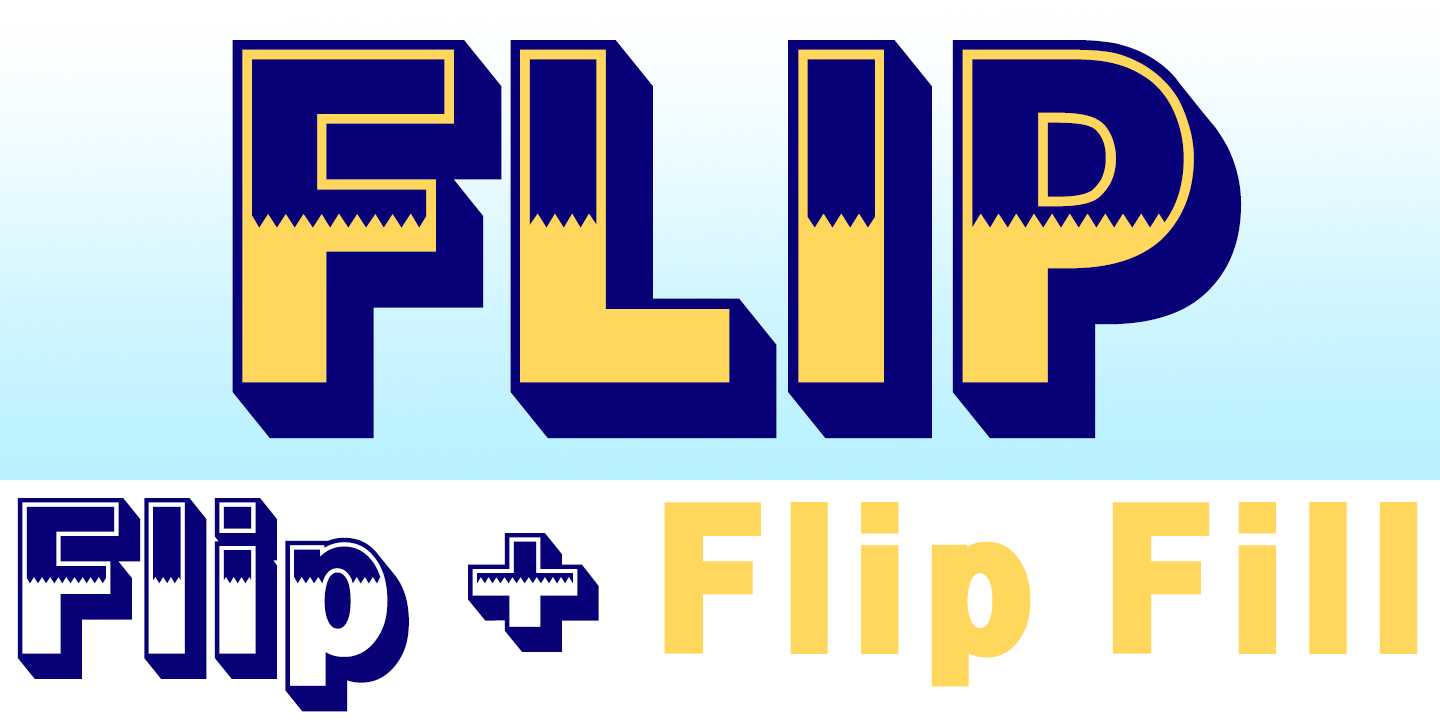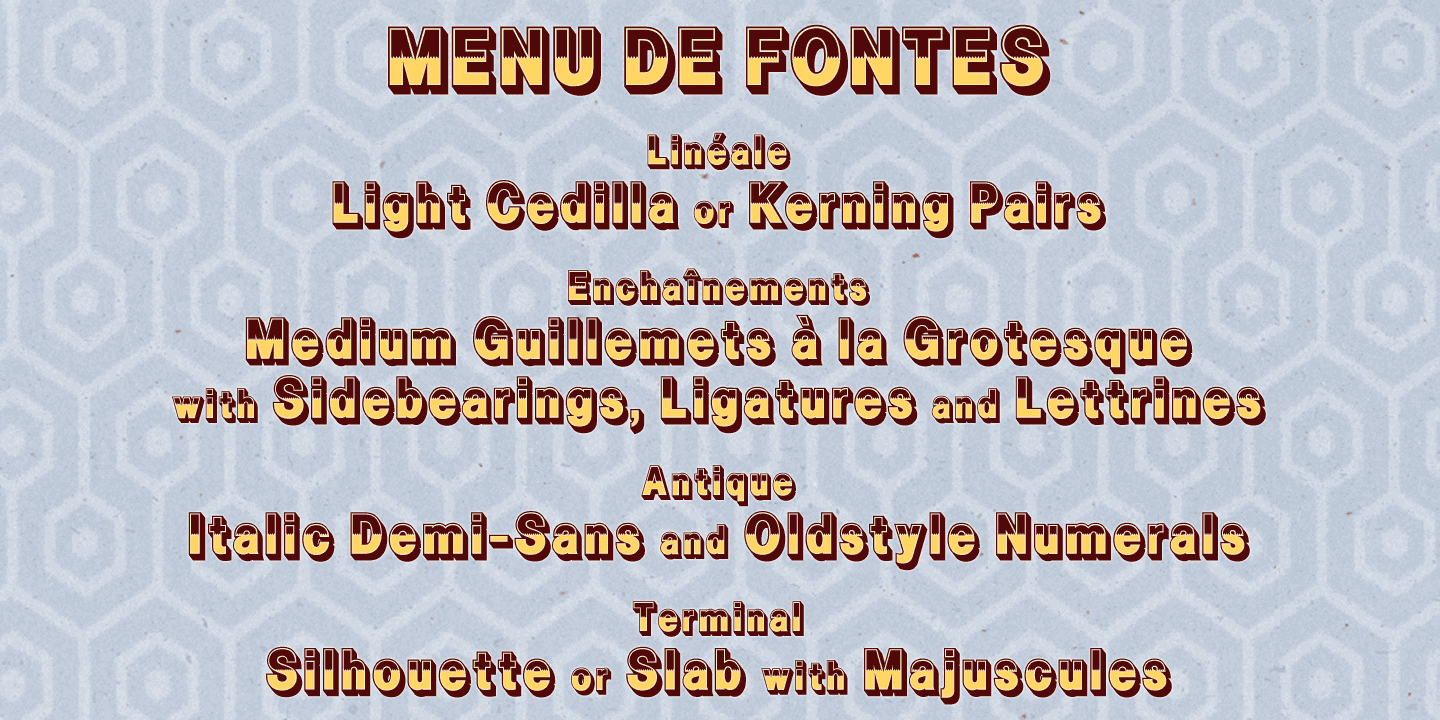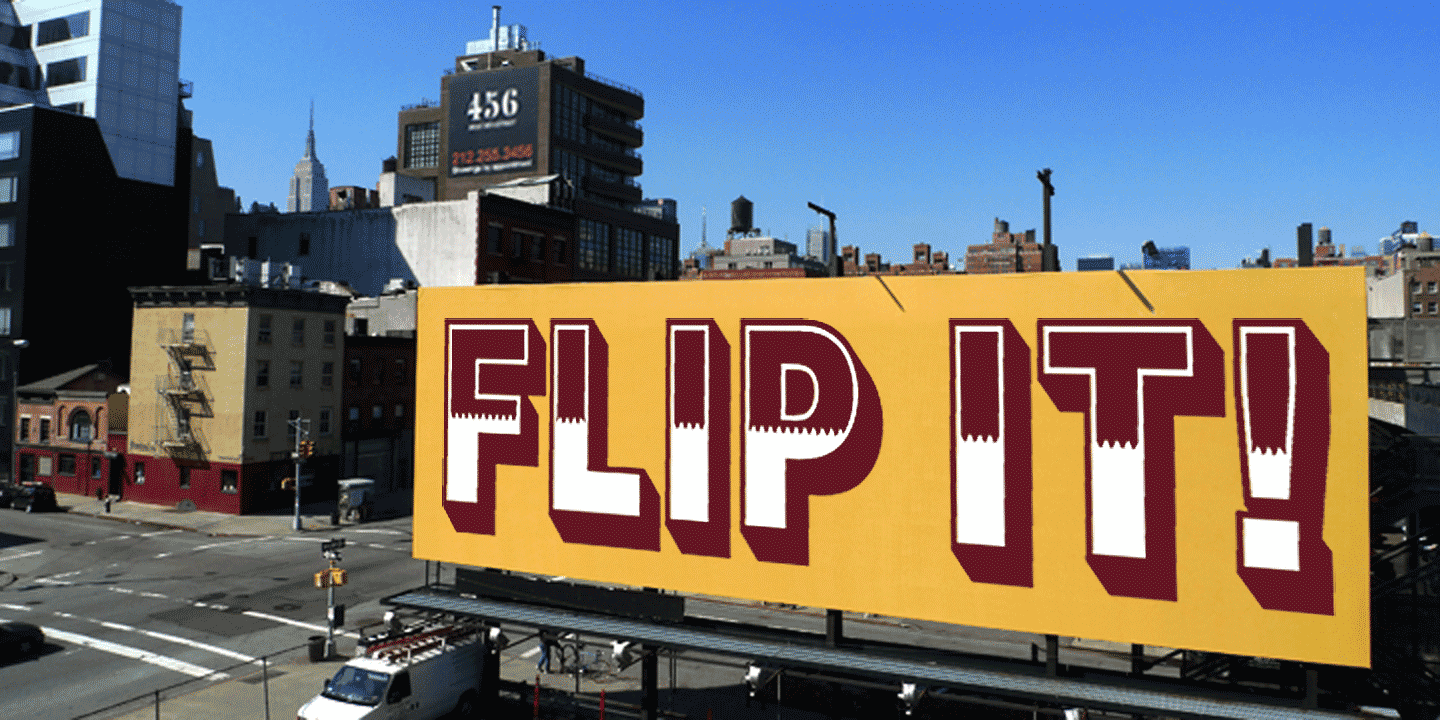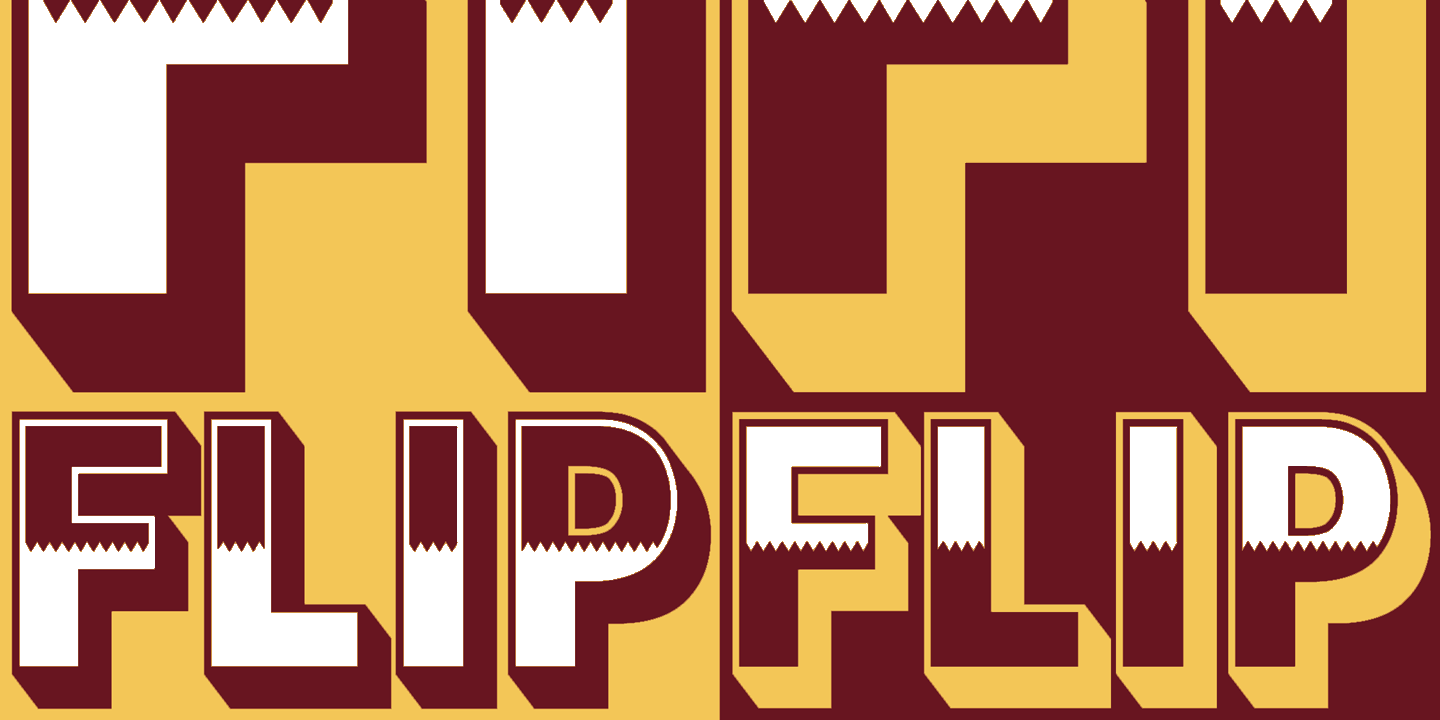
Flip
About Flip
Flip is a bold outline shadow sans with a counterchange; an eye-catching display font for contemporary usage. The typeface is a Rosewood for generations raised on grotesques, with a simple modern zigzag replacing fancy Victorian leafiness. Flip is flash…